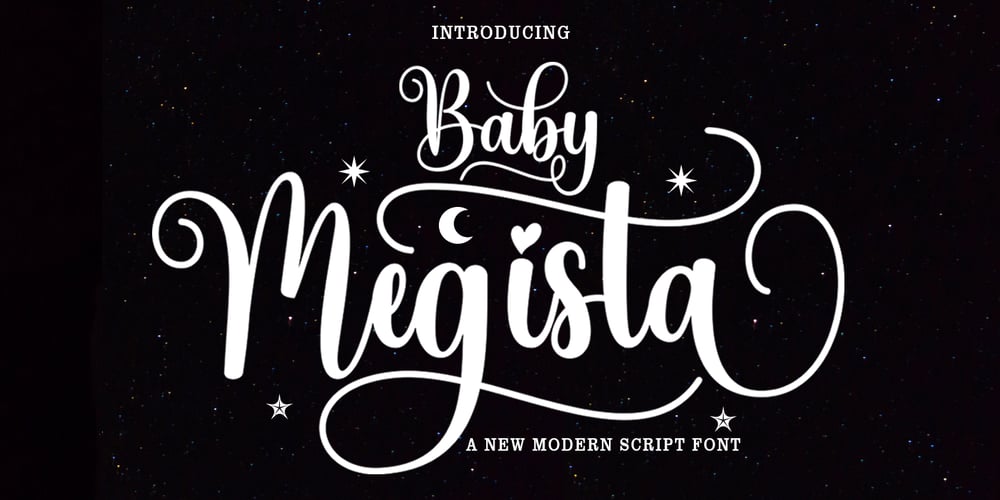
Baby Megista Font Family was designed by Ikhsan Maulana and published by IM Studio. Baby Megista contains 1 styles and family package options. Baby Megista is a calligraphic script font that comes with beautiful alternate characters. copper calligraphy mix in handlettering style. Designed to convey an elegant style.Baby Megista is attractive because it is subtle, clean, feminine, sensual, glamorous, simple and very easy to read. Its classic style is perfect to apply to all kinds of formal items such as invitations, labels, menus, logos, fashion, make up, stationery, letterpress, romantic novels, magazines, books, greeting/wedding cards, packaging, labels.Baby Megista has 304+ glyphs and 150 alternate characters. including multiple language support. It features OpenType with alternative styles, binders and character swashes, which allows you to mix and match letter pairs to suit your design, as well as a touch of ornamentation to make this font look elegant.